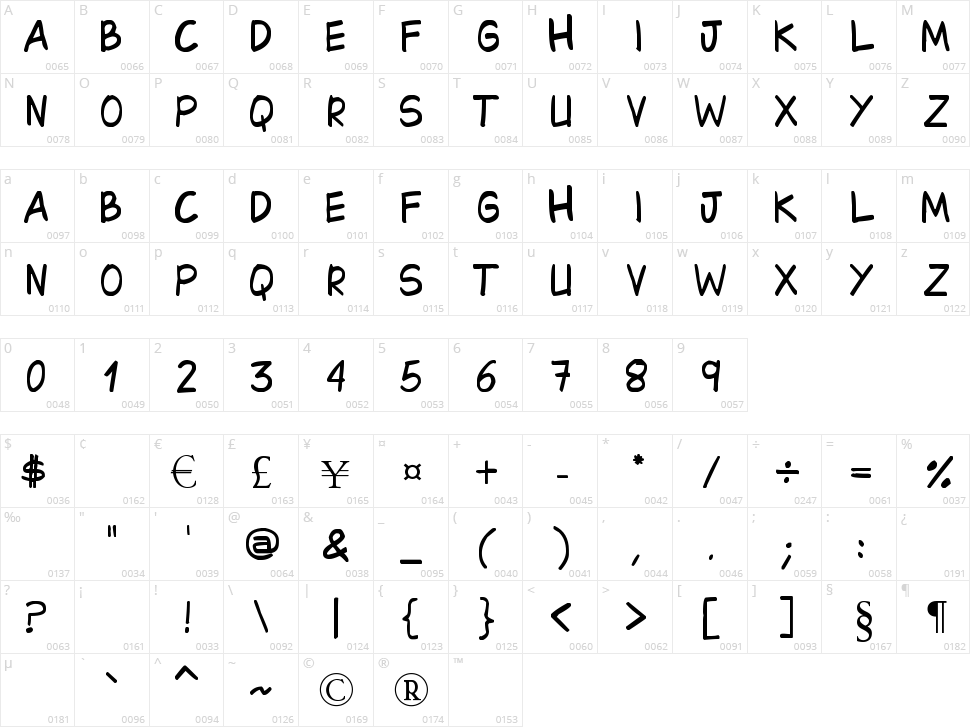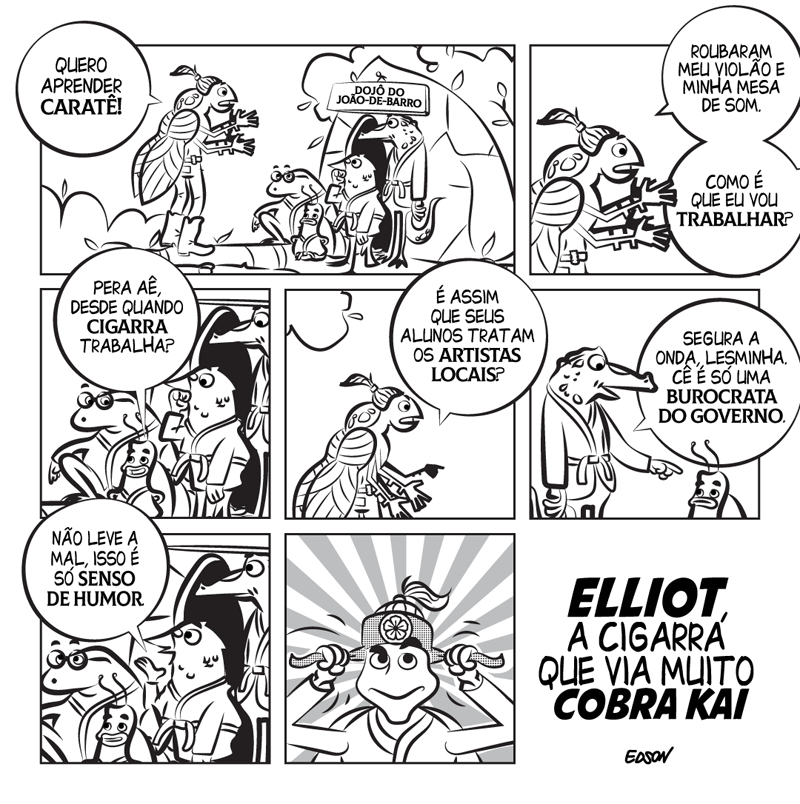
Edson Boom
Note of the author This is my own comic font, the EDSON BOOM. I decided that, rather than downloading fonts that I didn't like, paying for fonts, or using paid fonts illegally, it was better to create it myself. This way, I could register my own style, leave my mark, and extend my illustrative work as a comic artist. Now, I hope it serves you well, and I wish you good progress with your project.
Designer Name: Edson Lemos